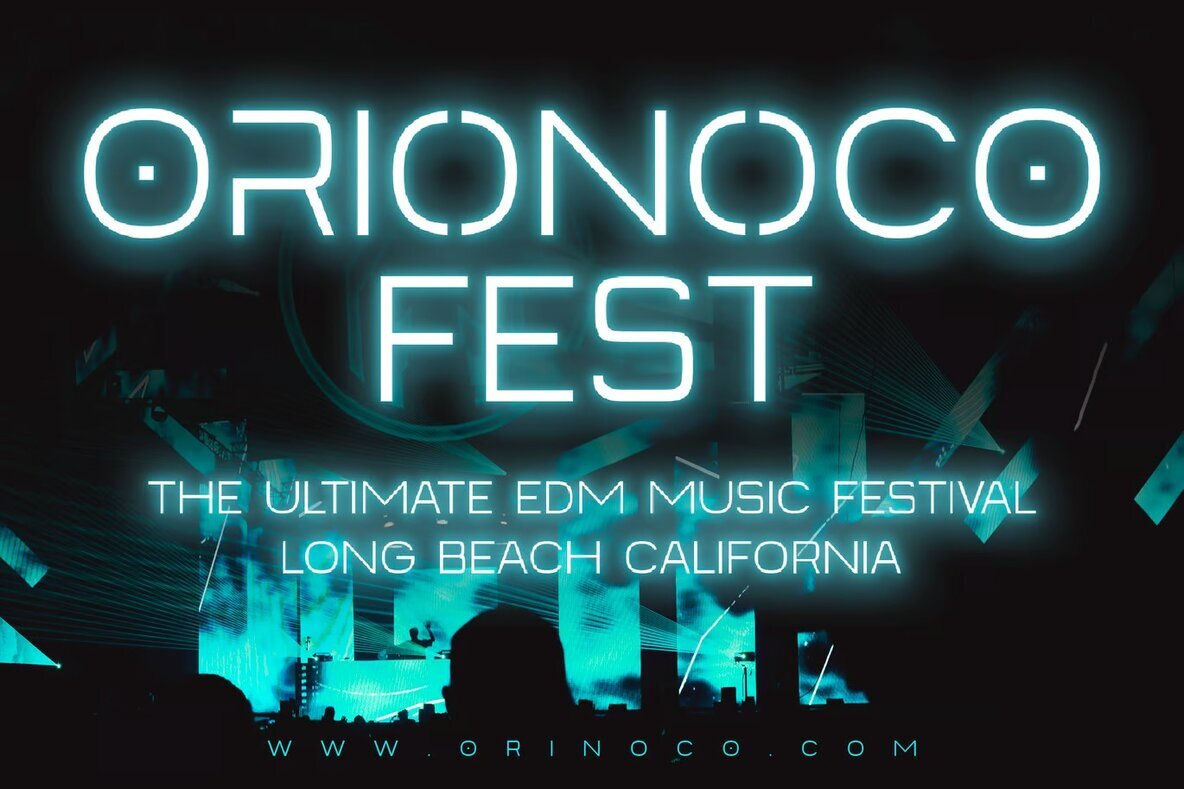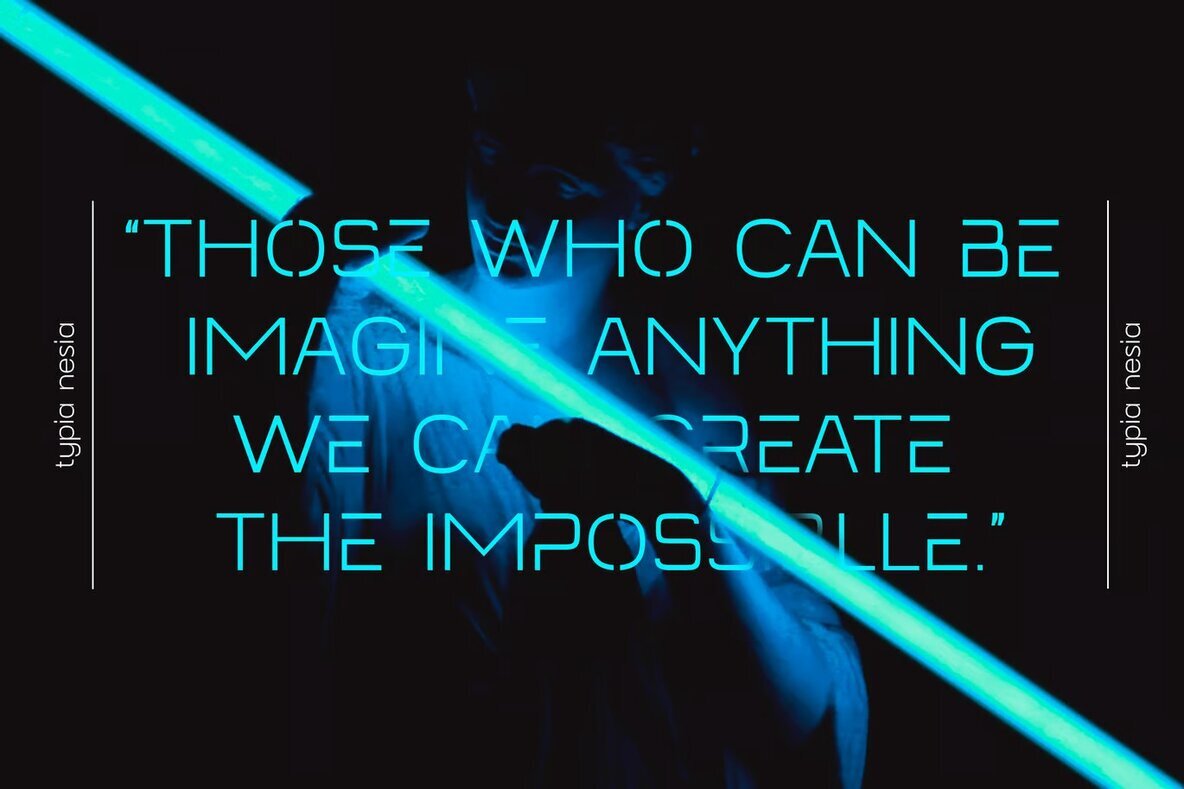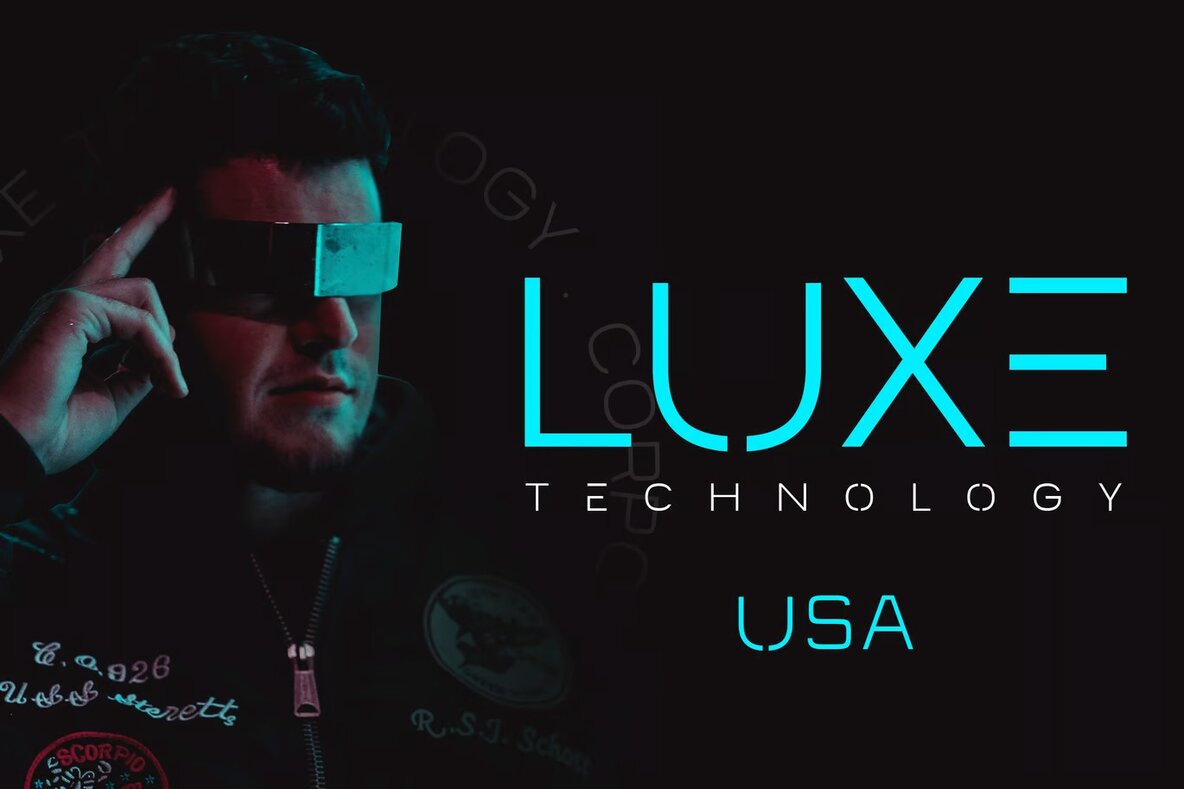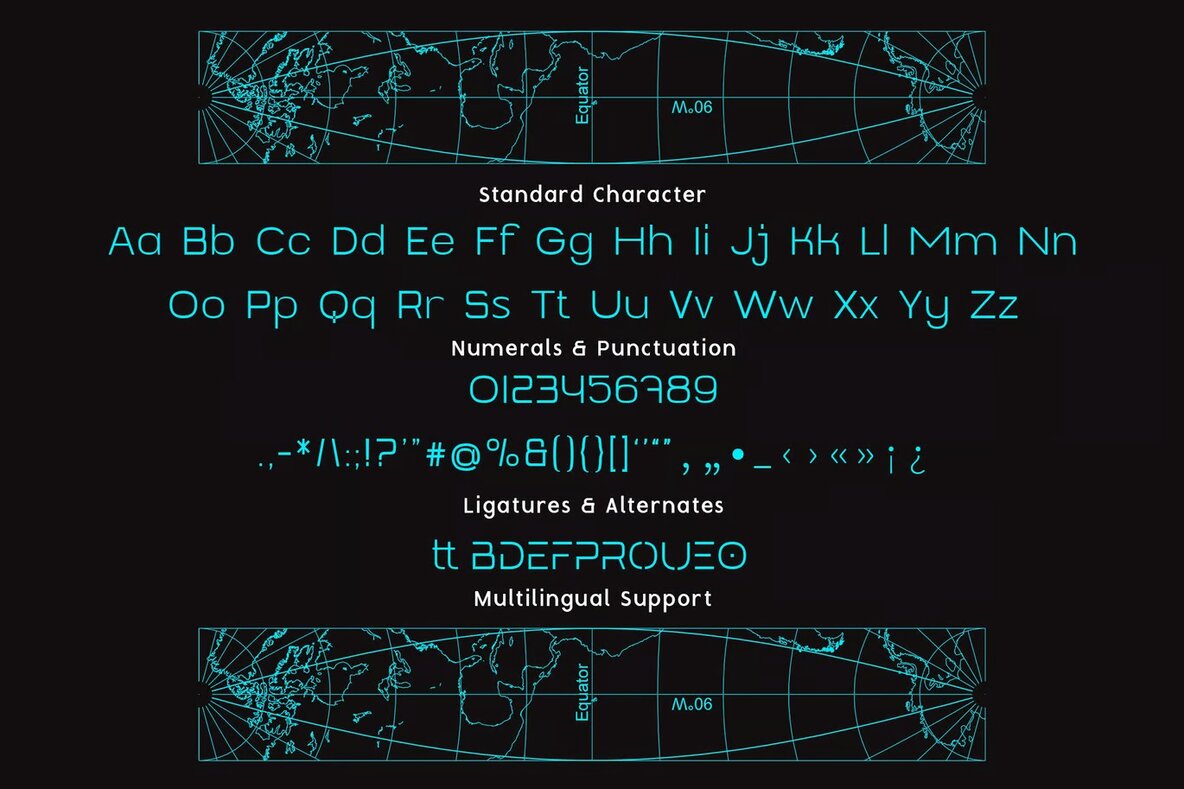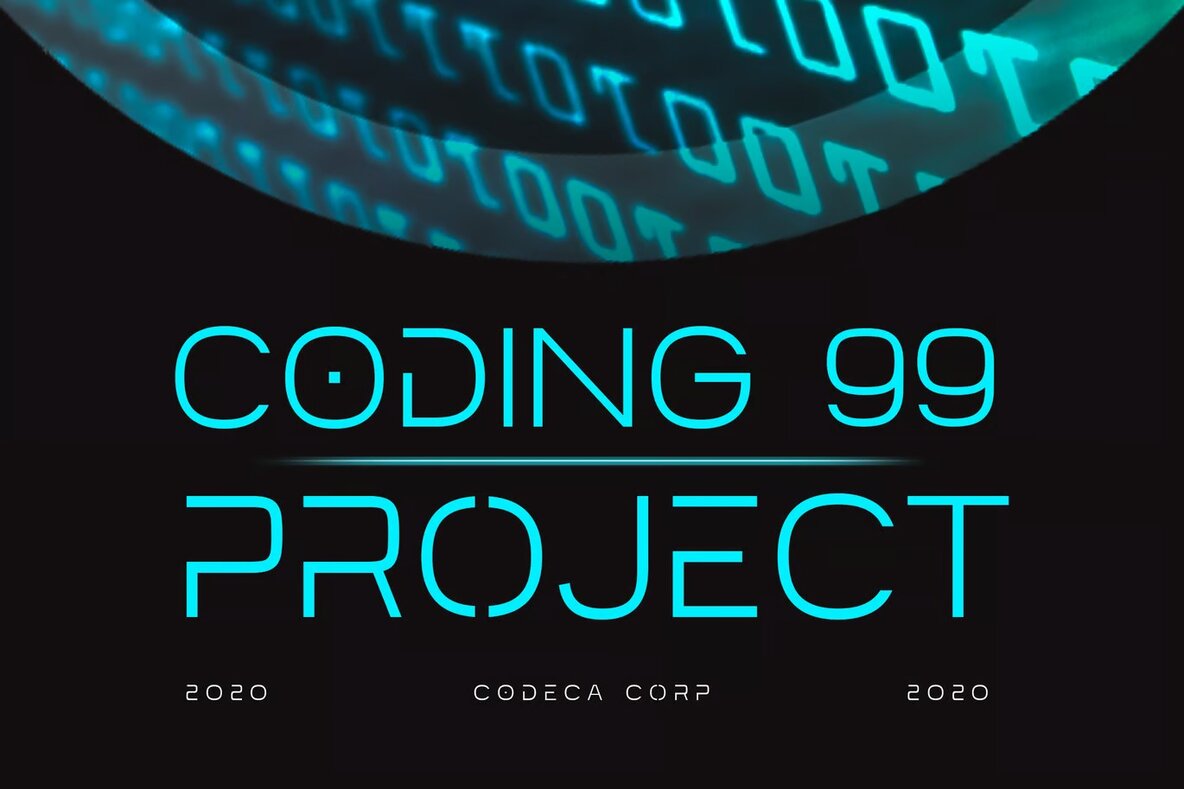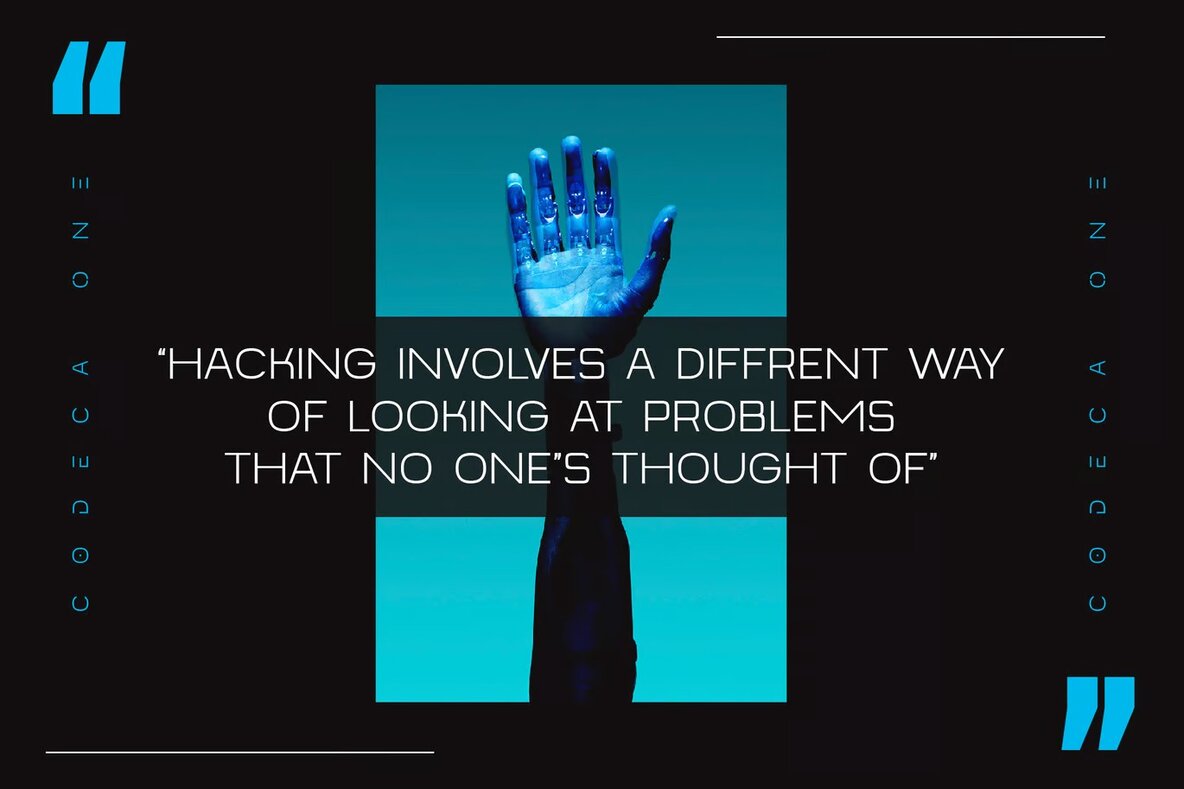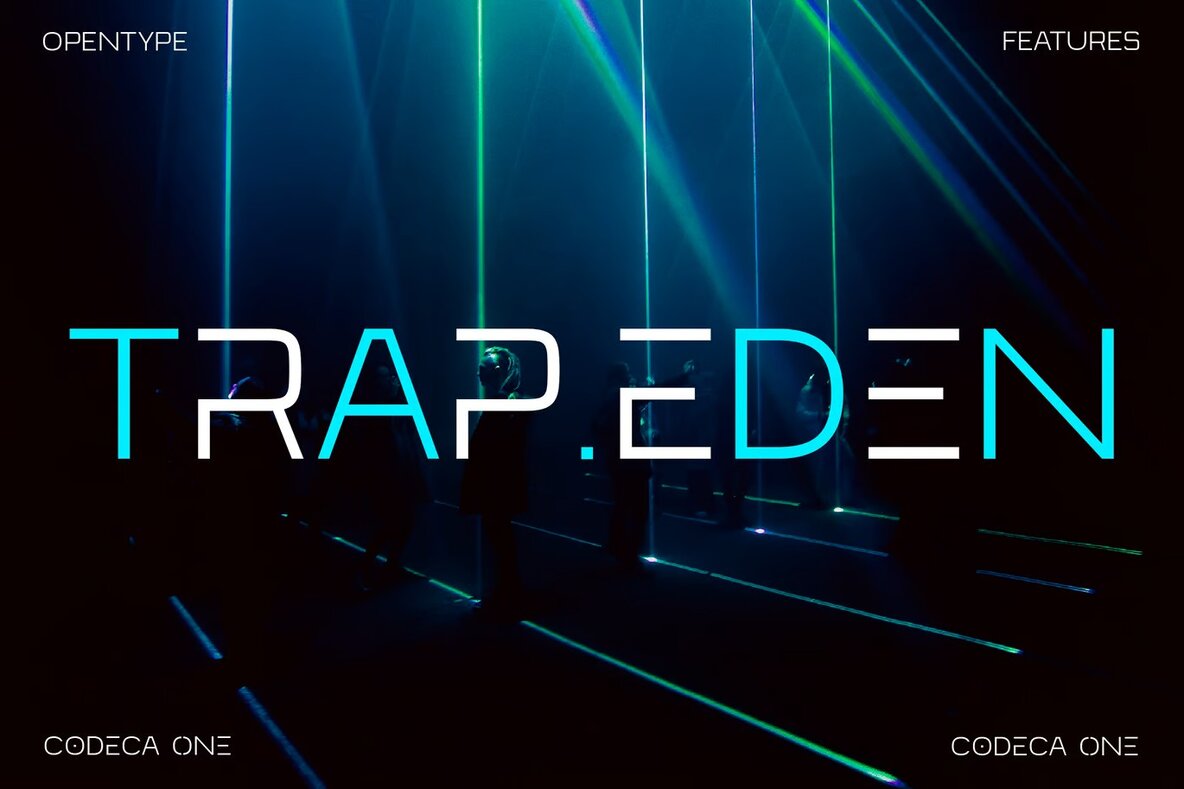
Codeca One Font
Codeca One is a versatile sans serif font designed for a futuristic and robotic aesthetic. Perfectly suited for a variety of design projects, this techno sci-fi font can enhance logos, branding, and promotional materials. Whether you're working on a sci-fi poster, product packaging, or invitations, Codeca One offers a sleek and modern touch. Ideal for the technology and game industries, it adds a dynamic edge to advertising and sports apparel designs.
Use this font to amplify your movie and futuristic typography projects. Its clean lines and contemporary style make it a great choice for any creative endeavor that seeks a modern and innovative look.